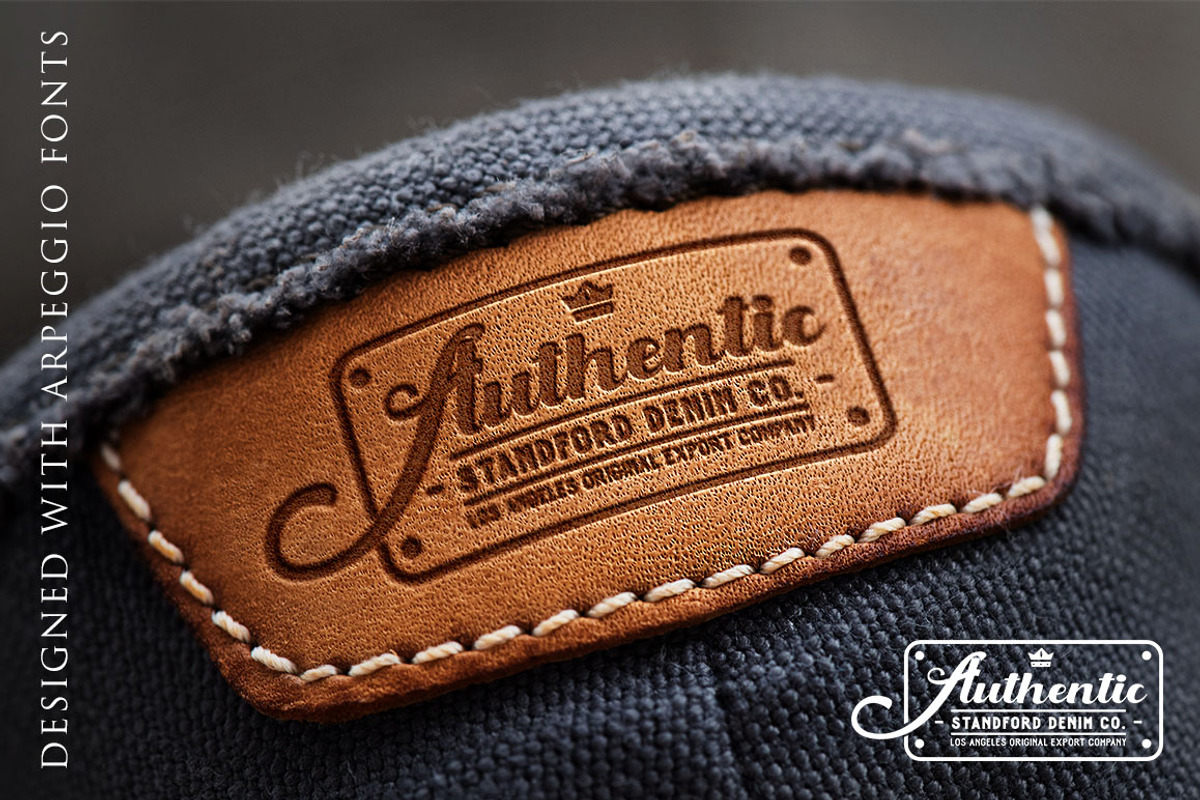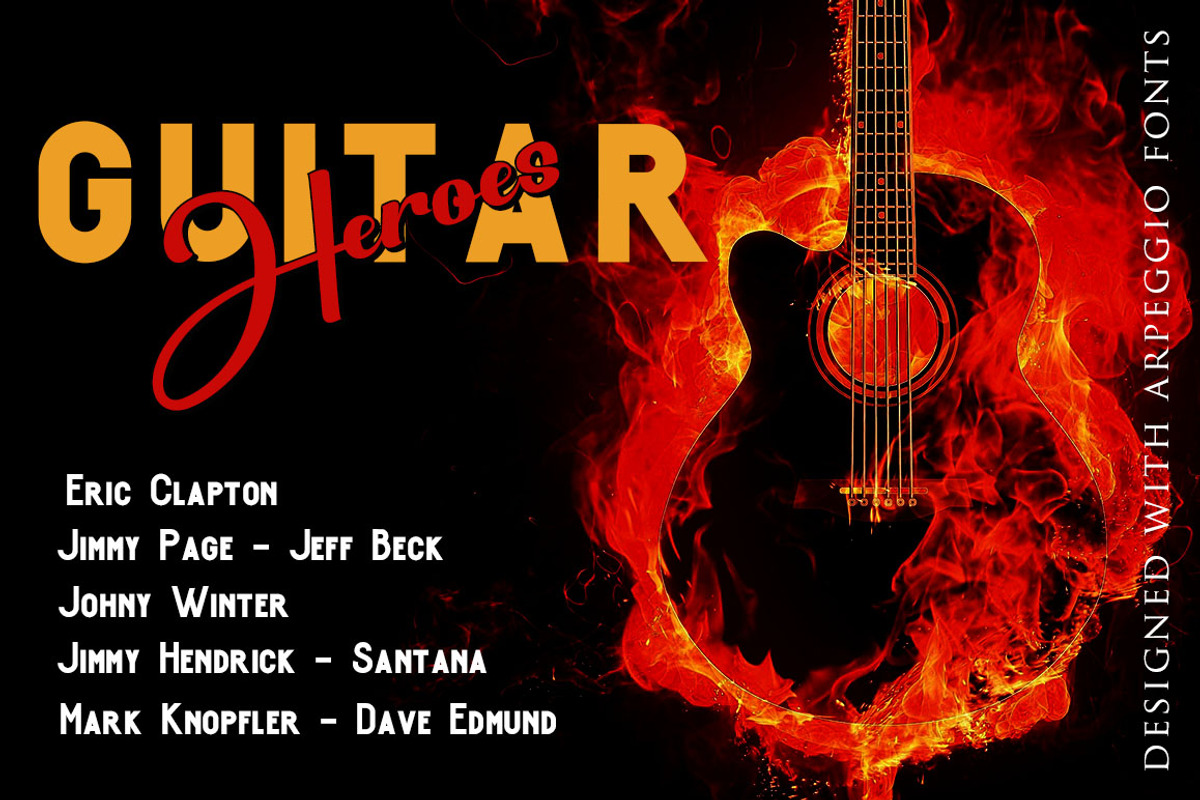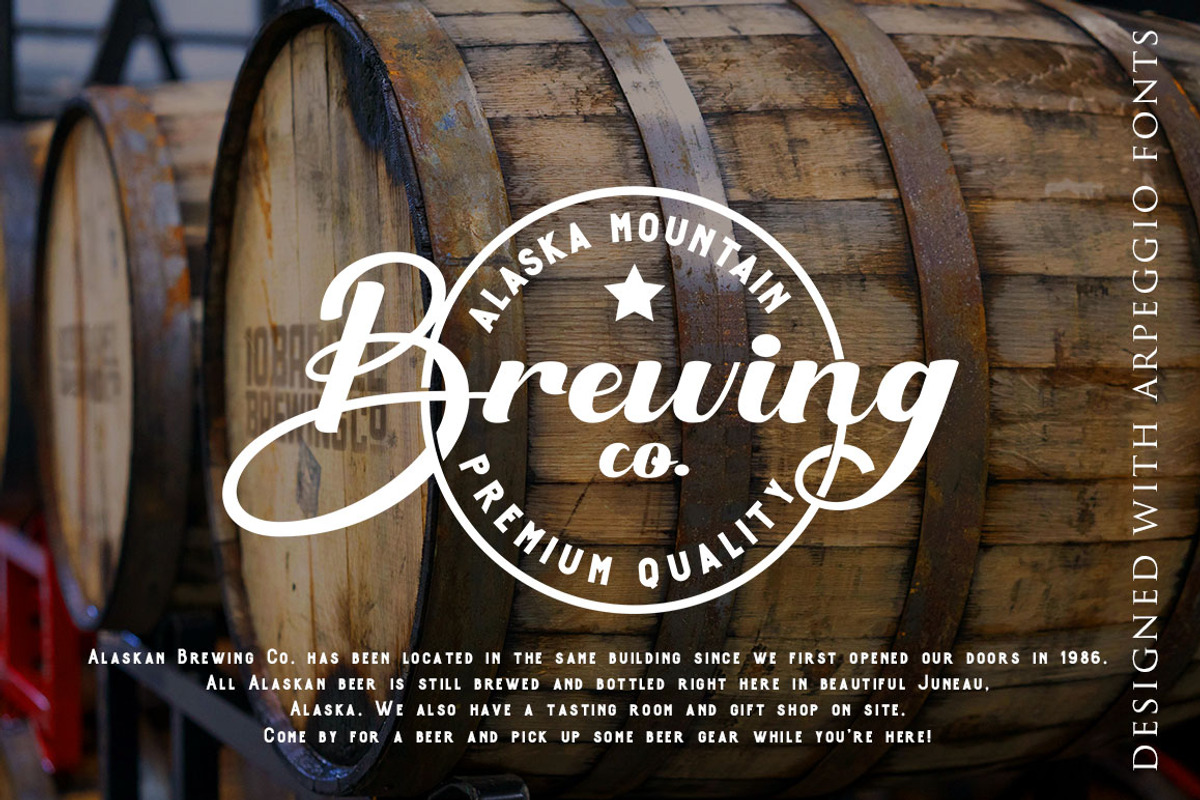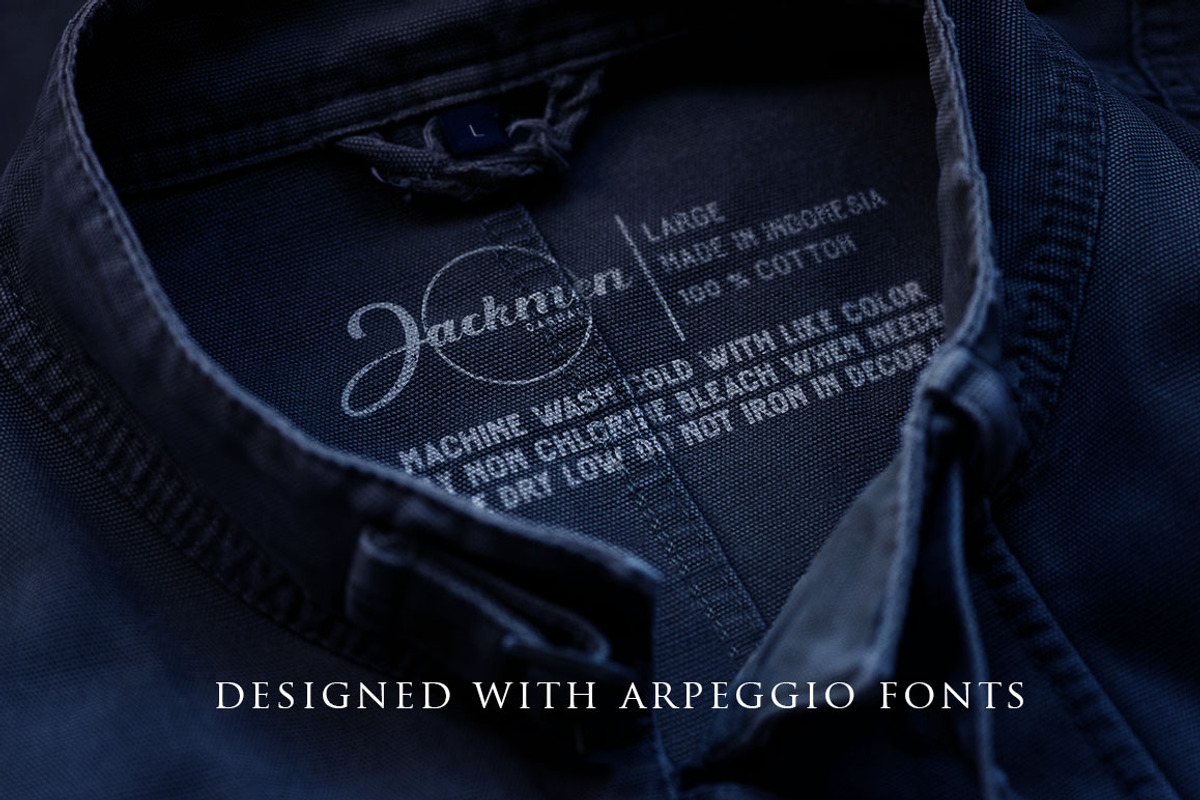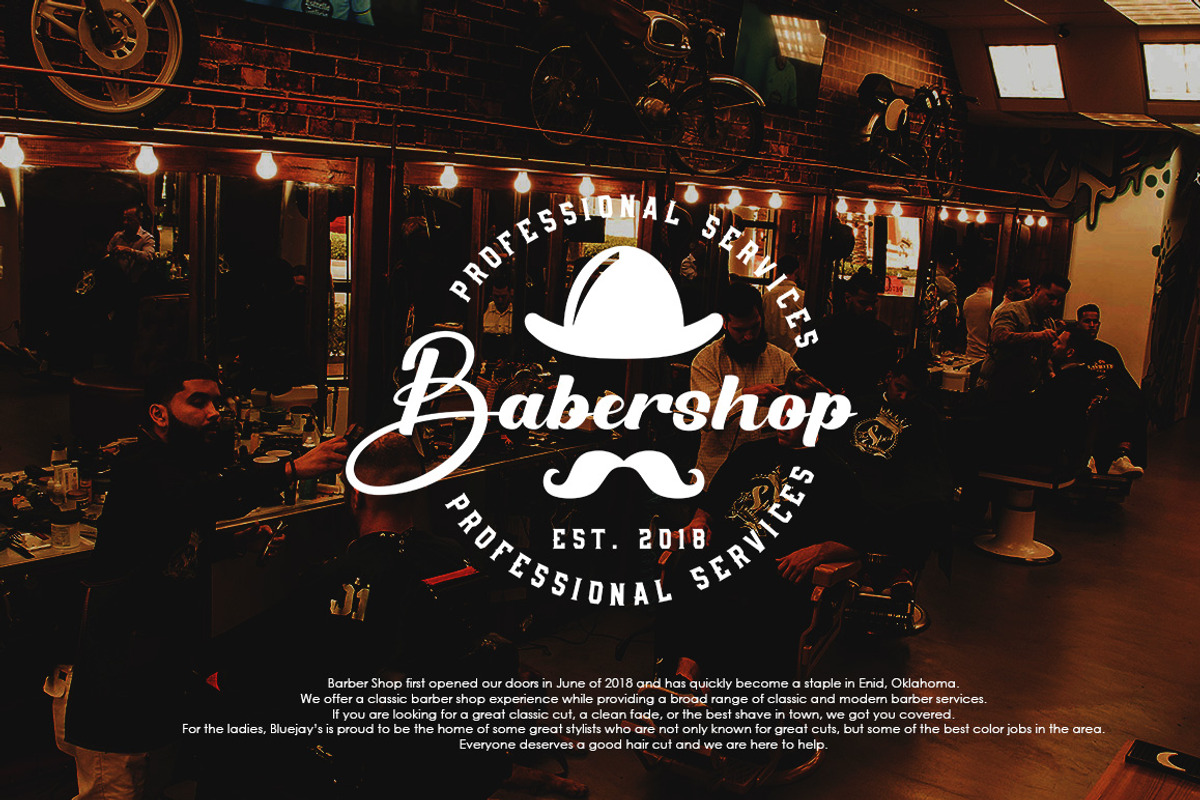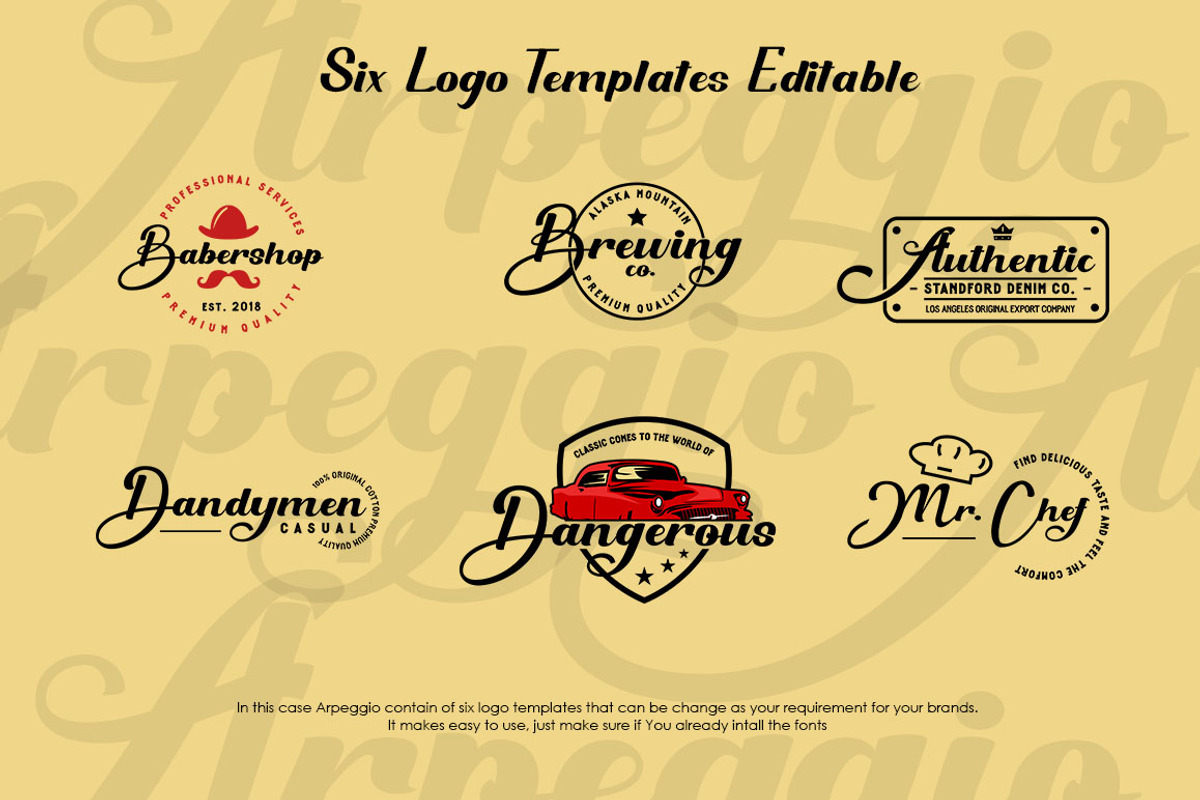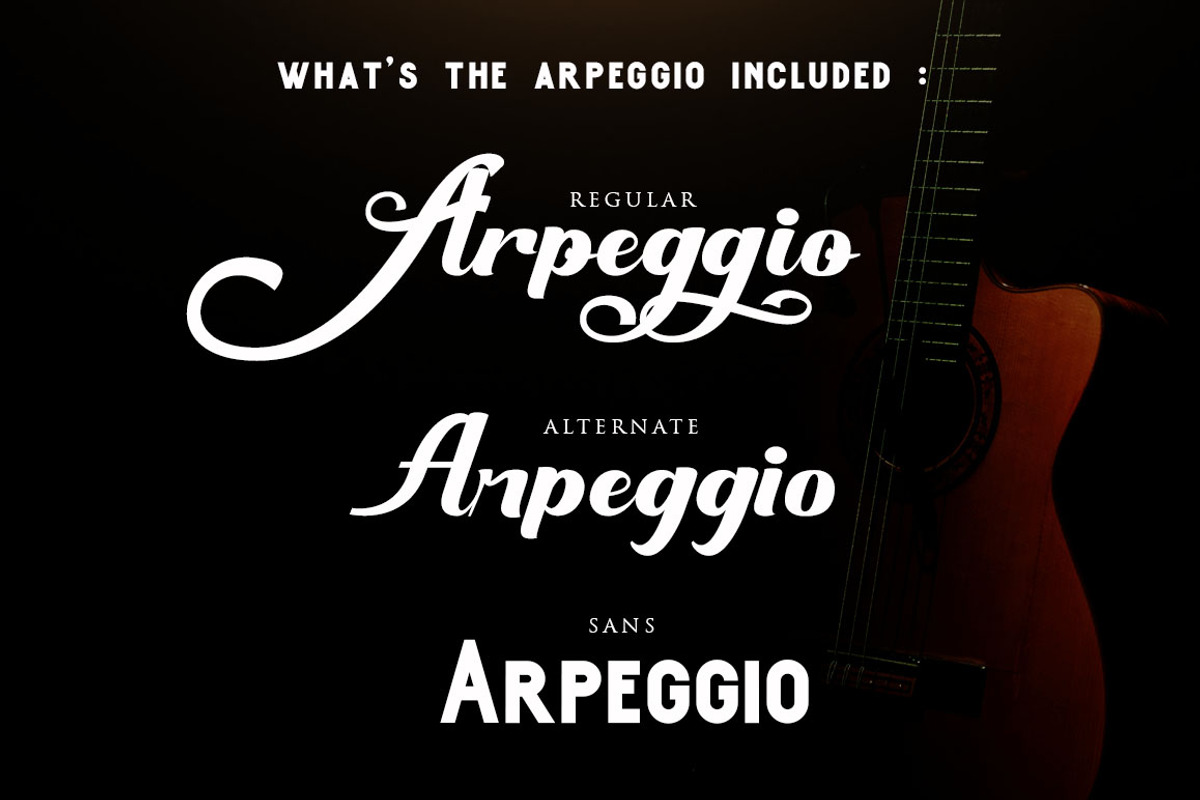
Arpeggio l Font Duo&6 Logo Templates
Introduce my New Product "Arpeggio" The new fresh handmade script and sans font. Very suitable for greeting cards, branding materials, business cards, quotes, posters, and more! This font are perfect for all brand :)
UpperCase & Lowercase Numerals & Punctuations Ligatures Multilingual characters(AÀÁÂÃÄÅCÇDÐEÈÉÊËIÌÍÎÏNÑOØÒÓÔÕÖUÙÜÚÛWYÝŸŸÆŒßÞàáâãäåæçèéêëìíîïðñòóôõöøùúûüýÿ)